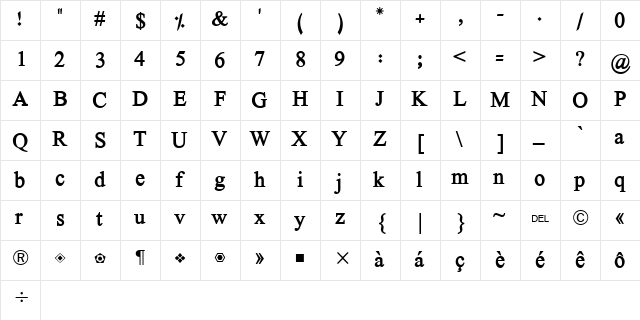
Hacen Typographer Bold Regular
| Foundry | Muhammad Hacen |
| Designer | Muhammad Hacen |
Design Context for Hacen Typographer Bold Typeface
Hacen Typographer Bold is a composed and adaptable typeface that performs quietly and consistently across a wide range of design contexts. The heavy weight commands attention and anchors typographic hierarchies.